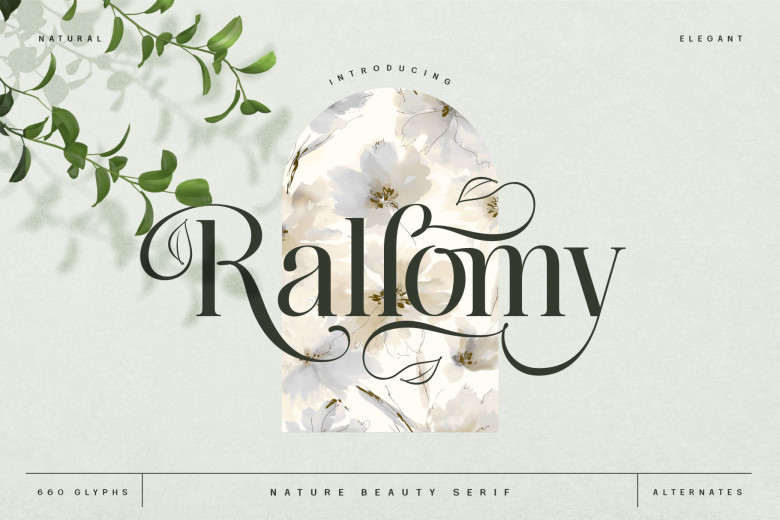
Rallomy Font
Rallomy is a font that developed a form of nature’s beauty. It has a dynamic alternate which the swash with a leaf symbol and the ligature system – this feature will give a harmonious combination. Generally, this font suitable to project design to show the nature’s essence.
Rallomy has 660 character and supports Unicode as per as multiple languages and PUA encoding. Therefore, this font is practicable for designing work such as fully decorates designs toward the nature, elegant, and modern.
Rallomy Serif Font